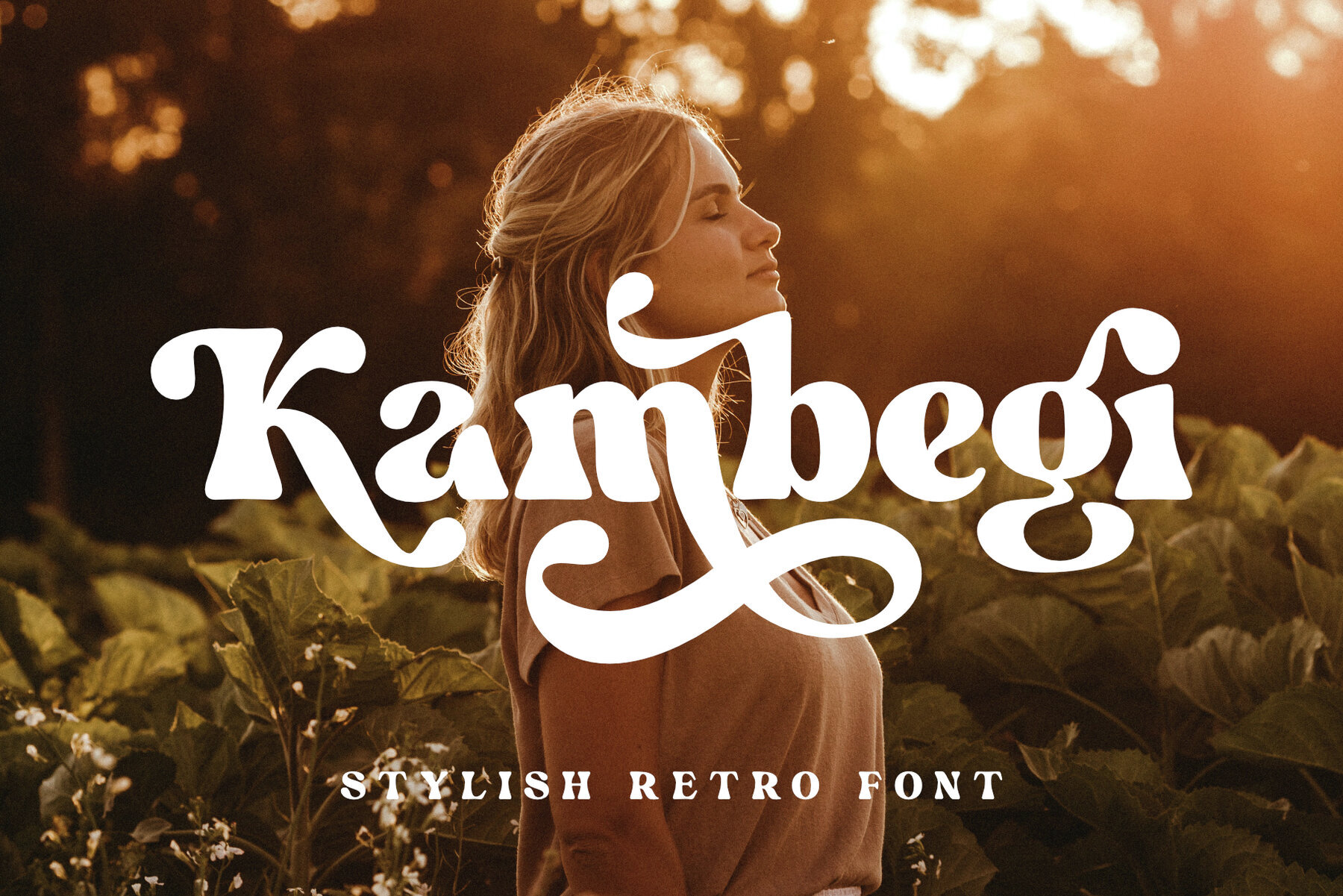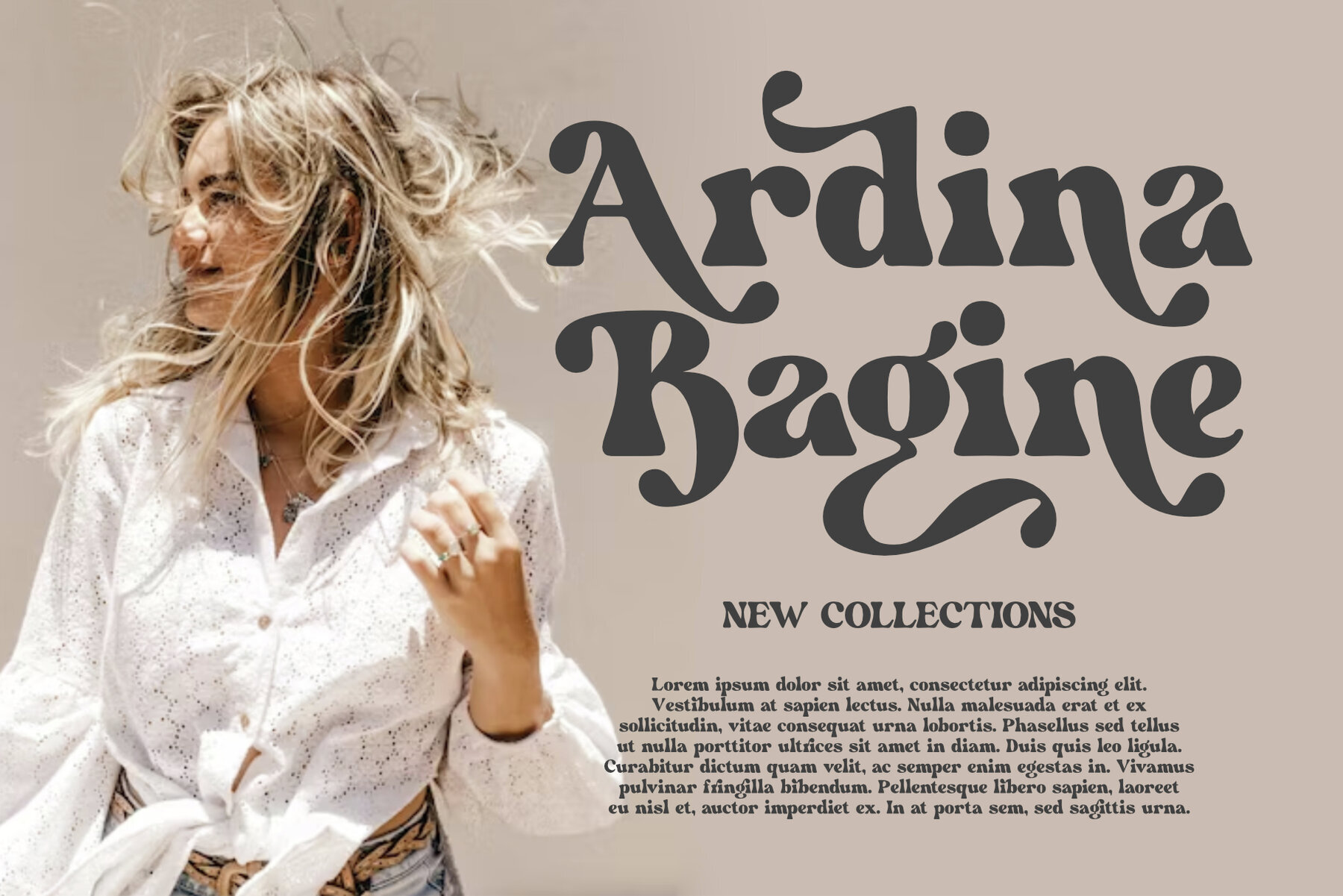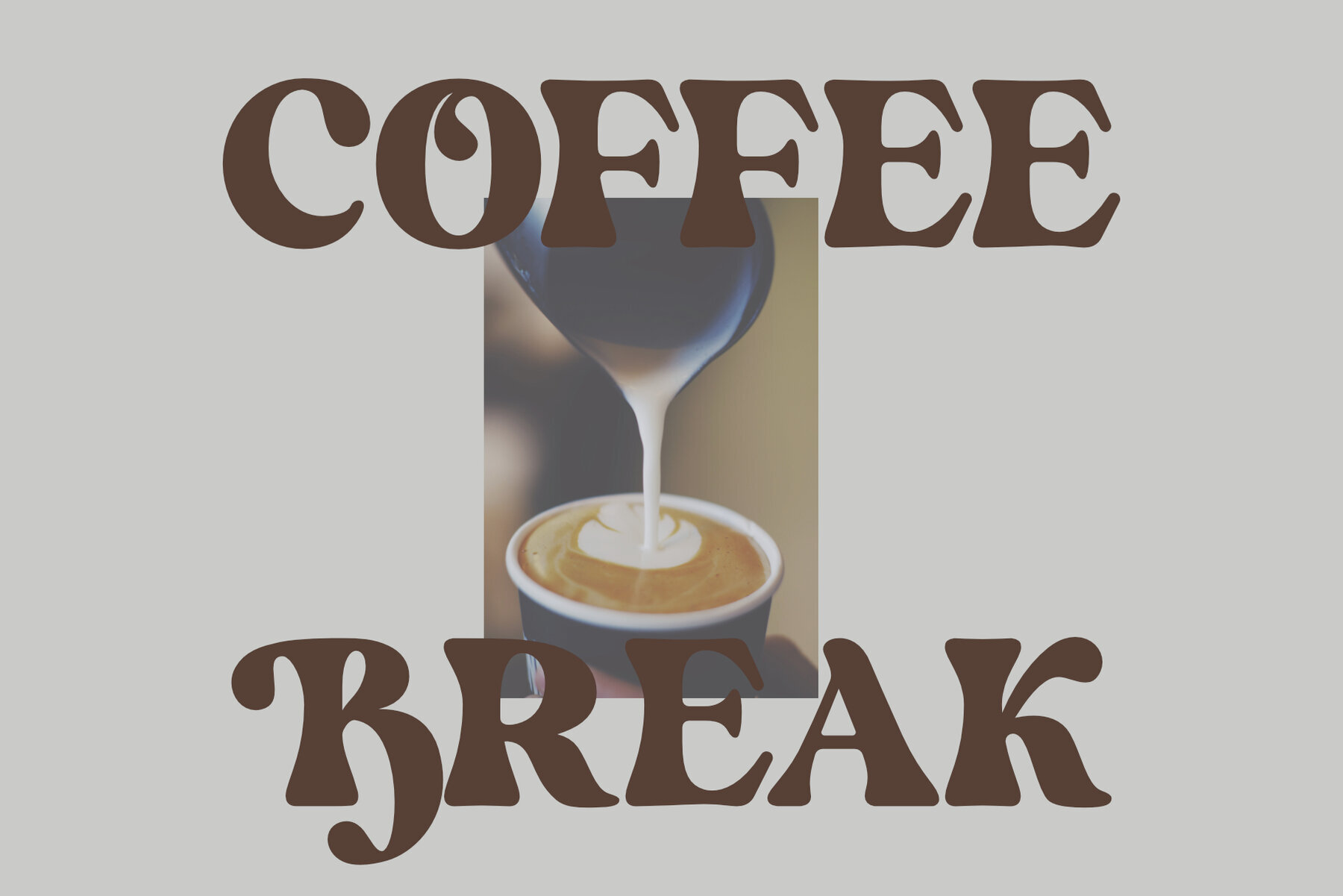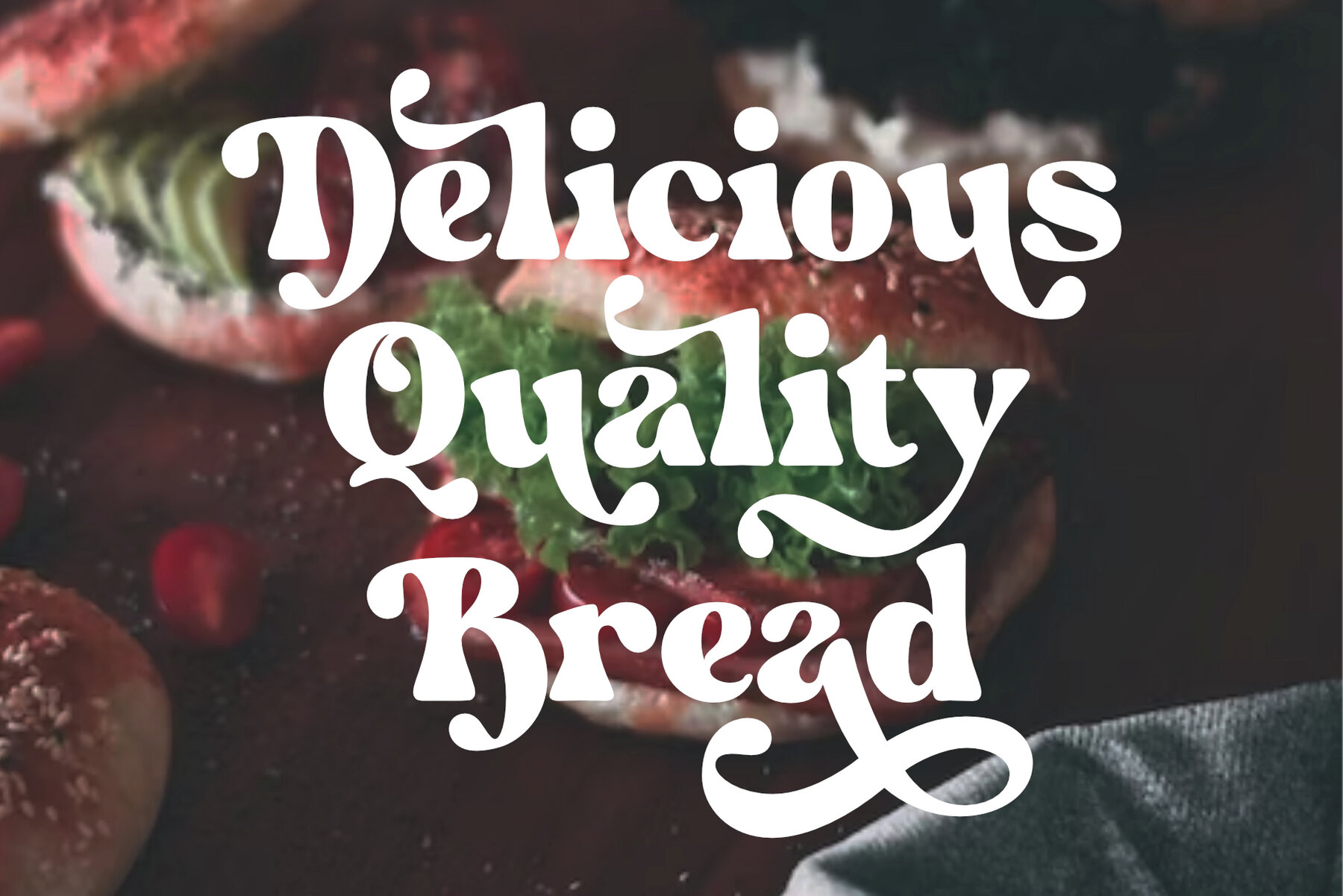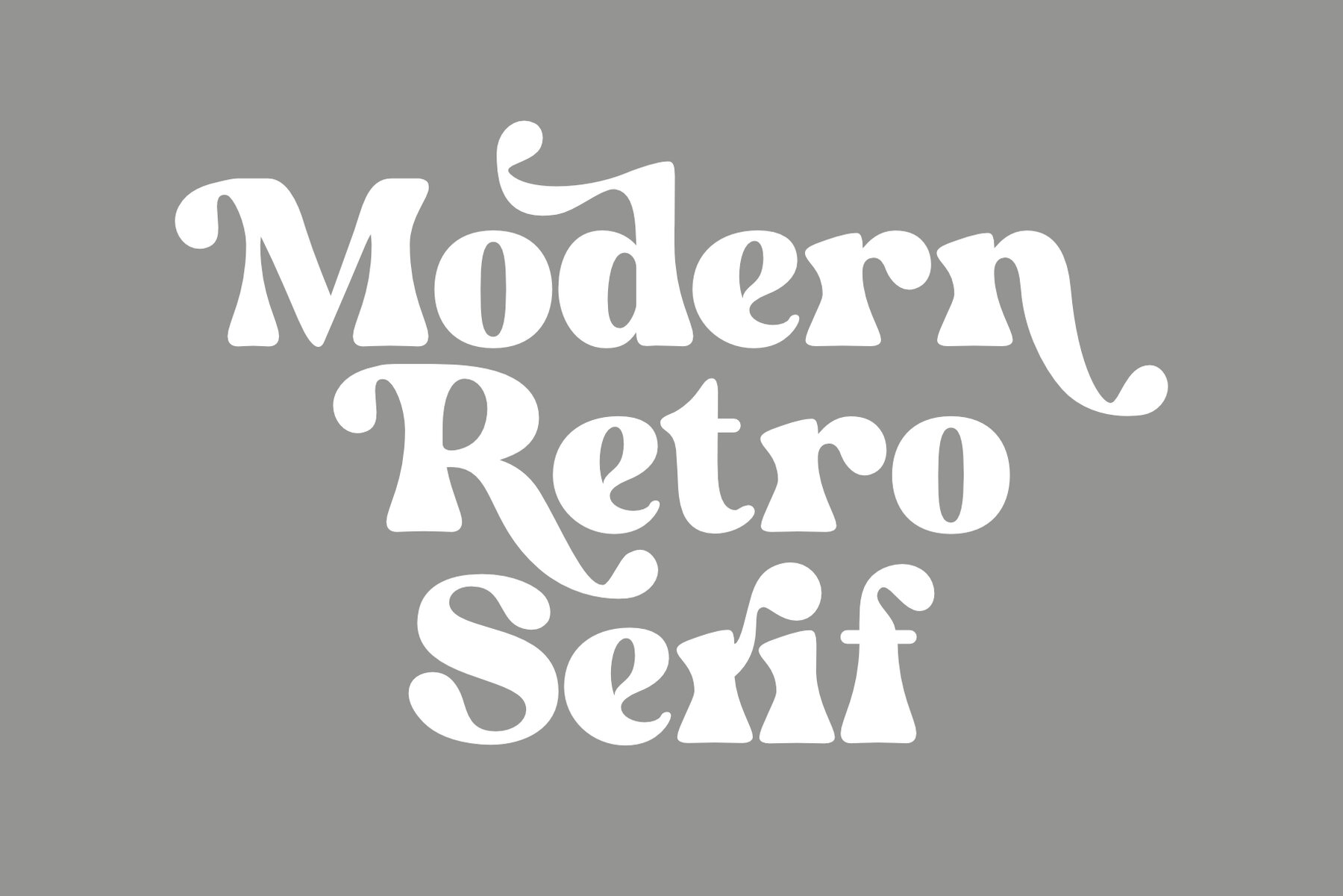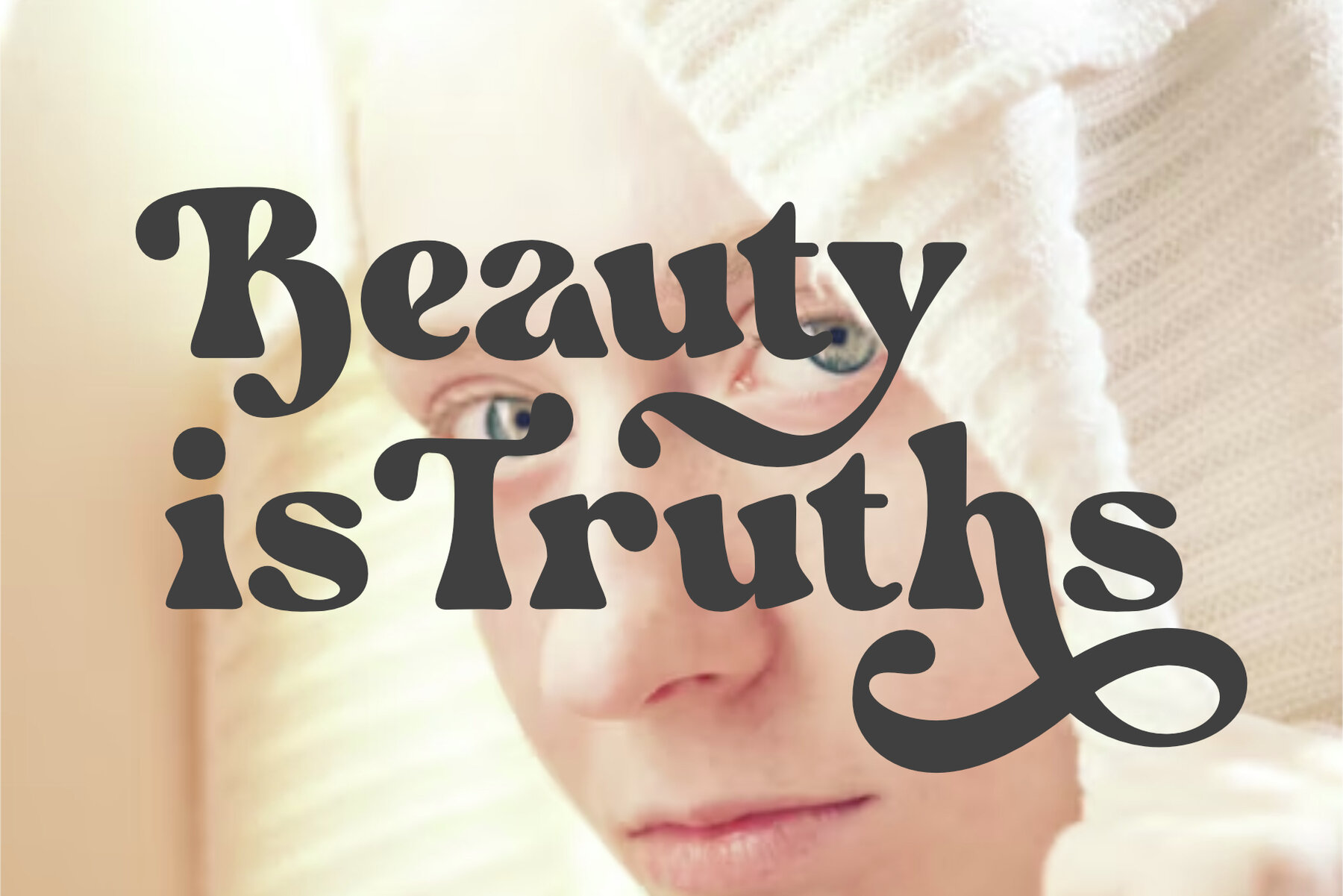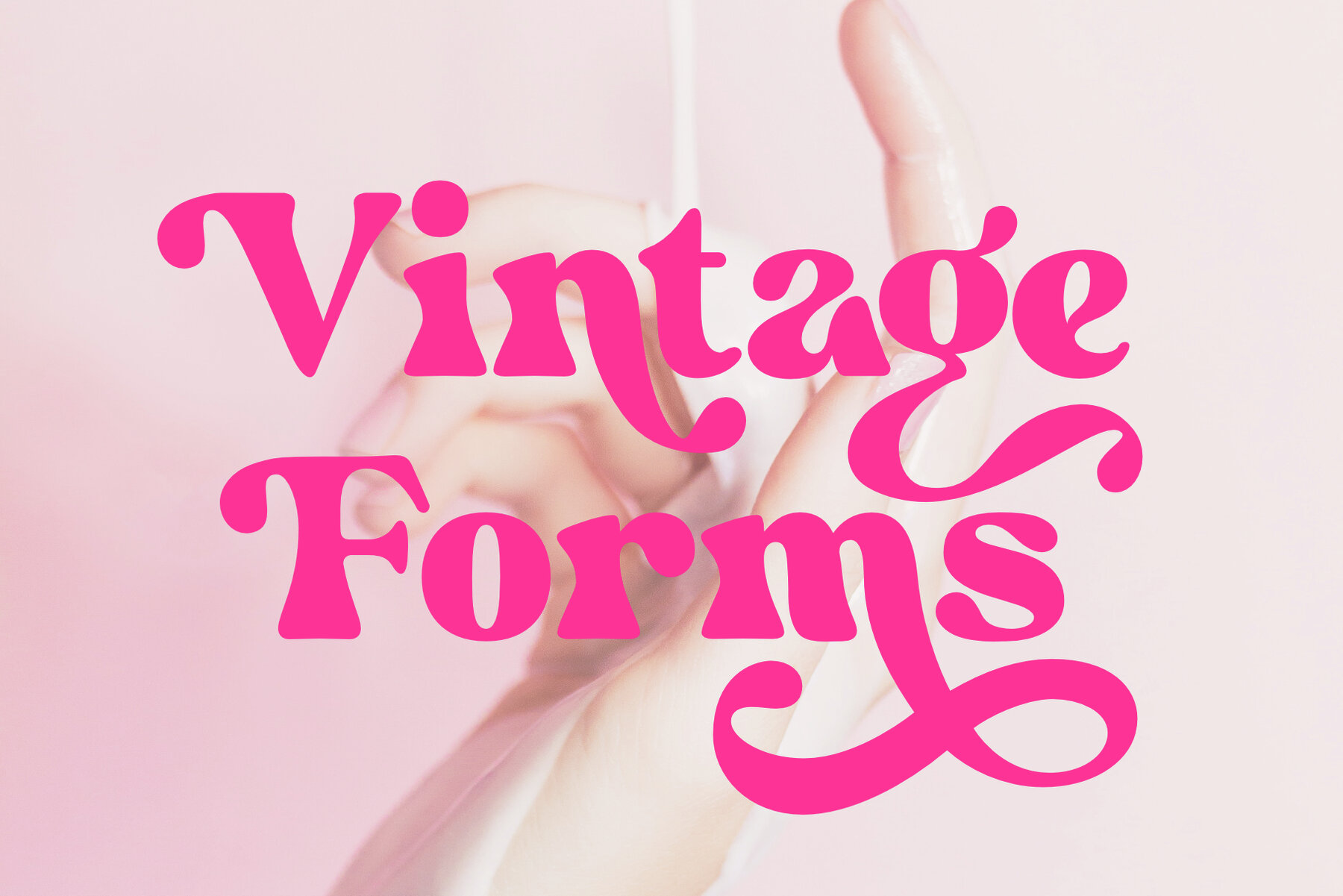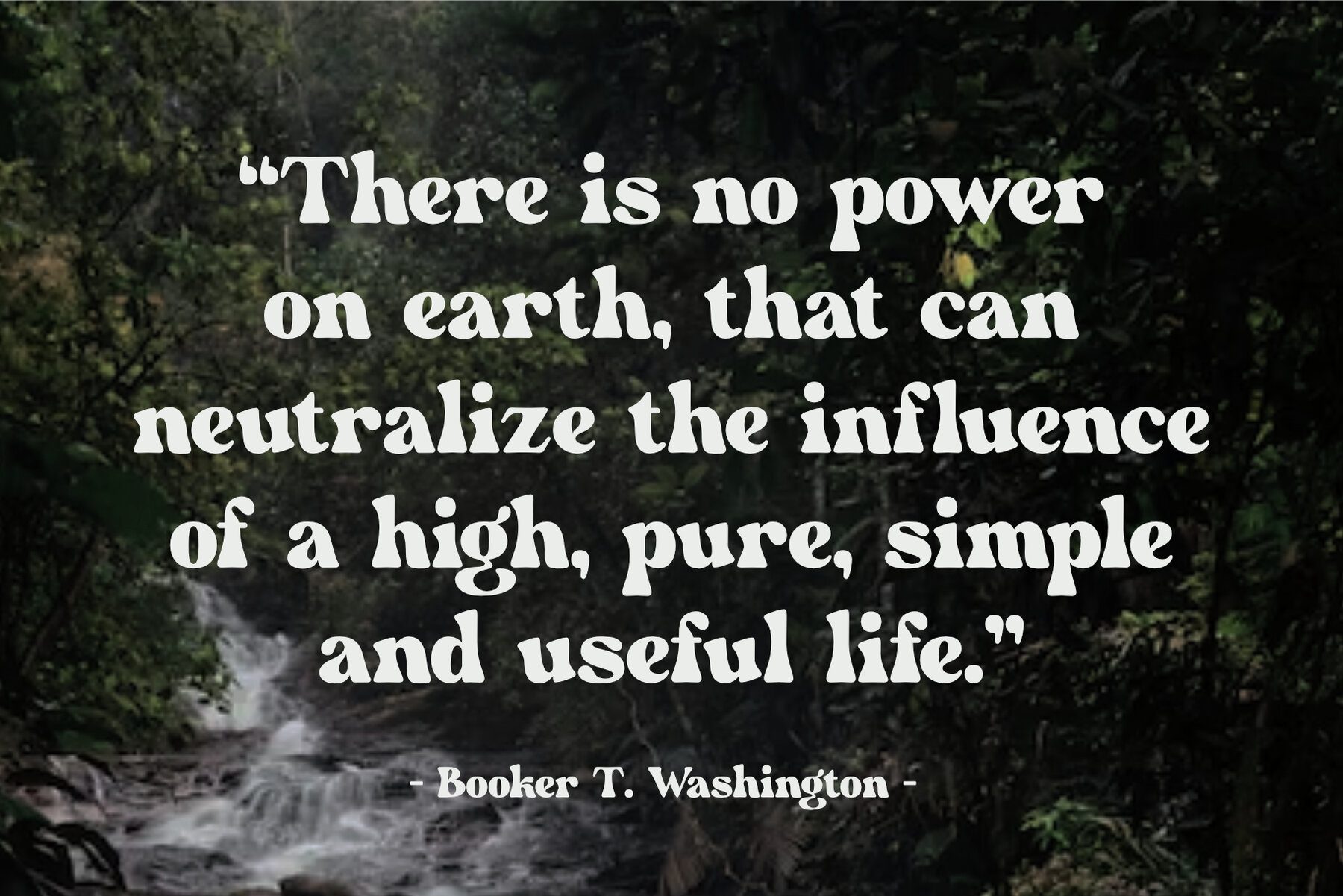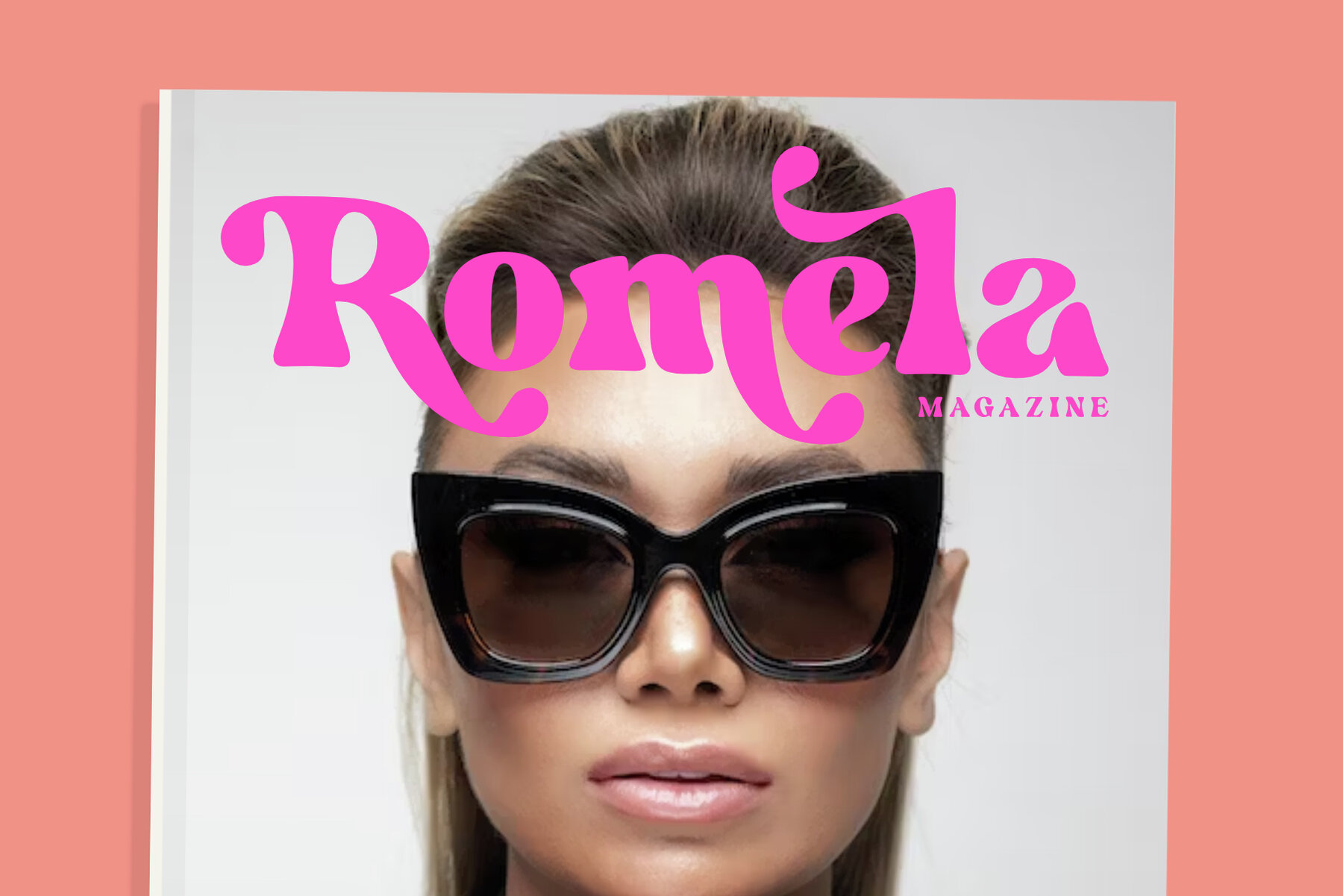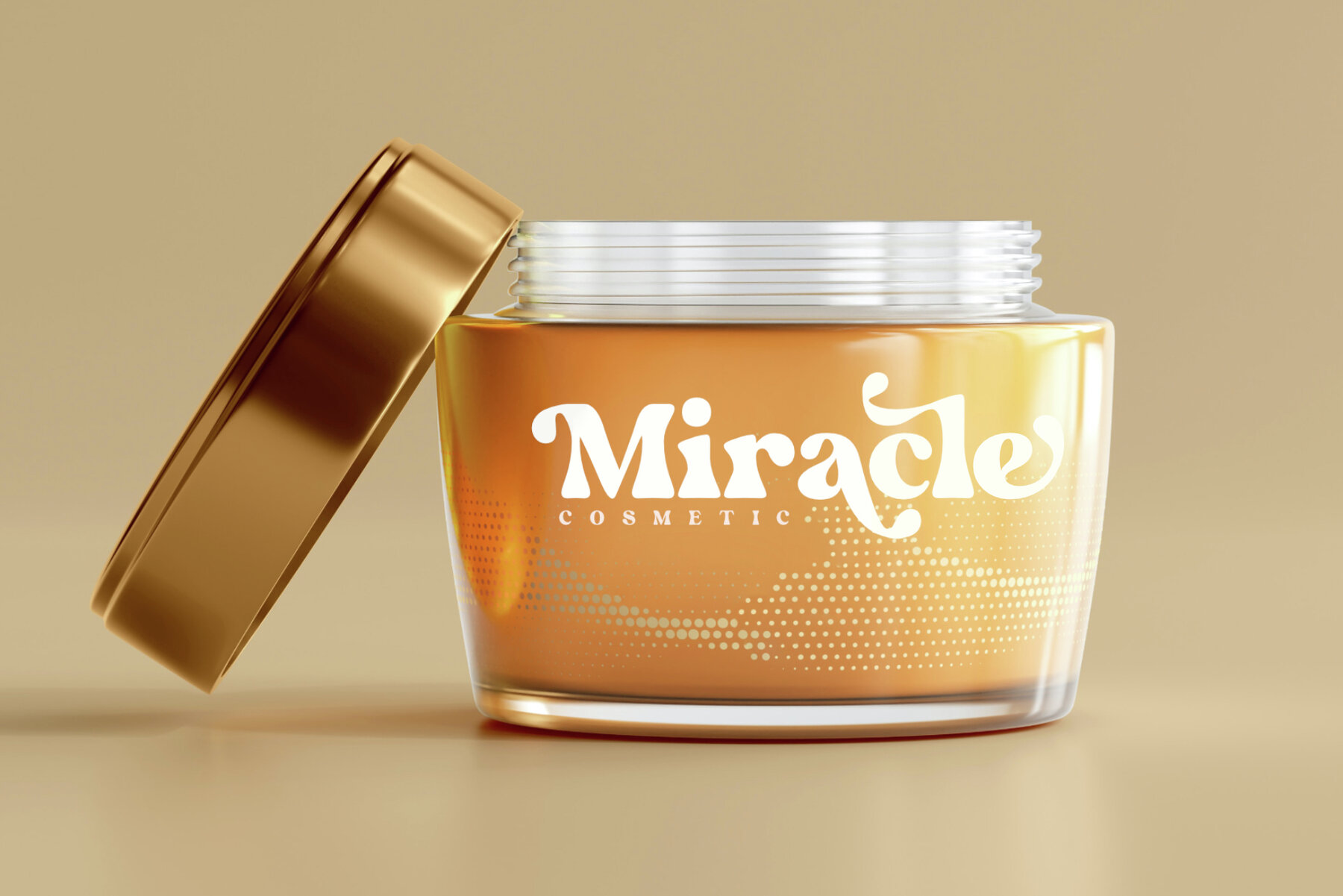
Kambegi Font
Kambegi Regular
Kambegi by Saiful Anwar is a bold retro serif font that combines a casual vibe with a clean, modern aesthetic. Perfect for adding a distinctive retro-modern touch to your design projects, Kambegi is ideal for applications ranging from logos to invitations, labels, magazines, books, greeting cards, packaging, fashion, and stationery. This font is PUA encoded, allowing easy access to all glyphs and swashes via Character Map or Character Viewer on Mac. For the best experience, use a program that supports the OpenType feature and the Glyphs panel, such as Adobe or Corel Draw applications, to explore and utilize the full range of Kambegi's possibilities.Kambegi: A Bold Retro Serif with a Modern Touch